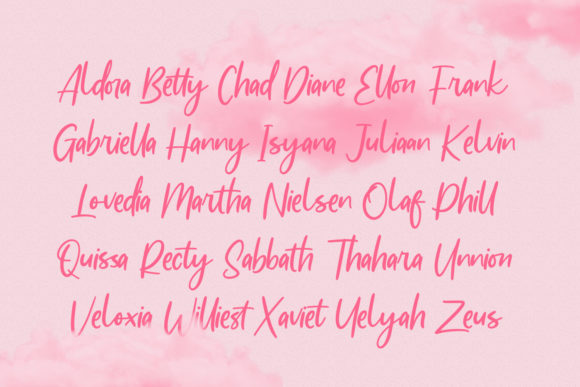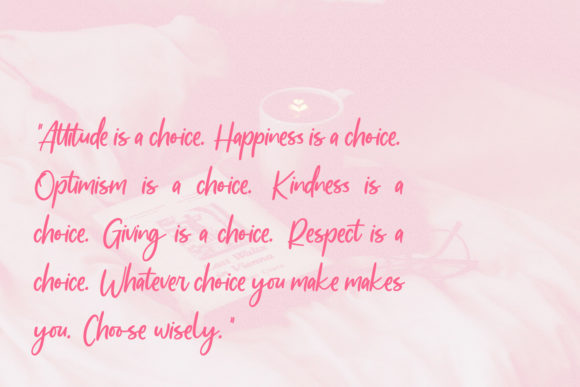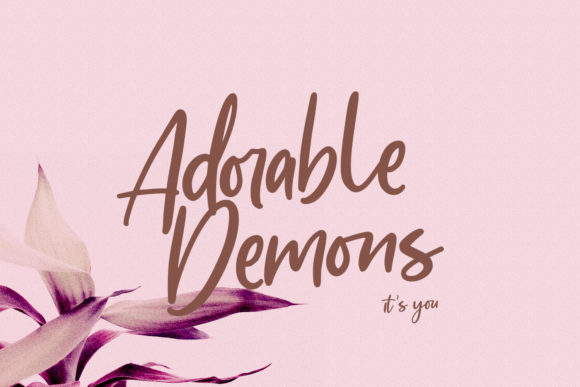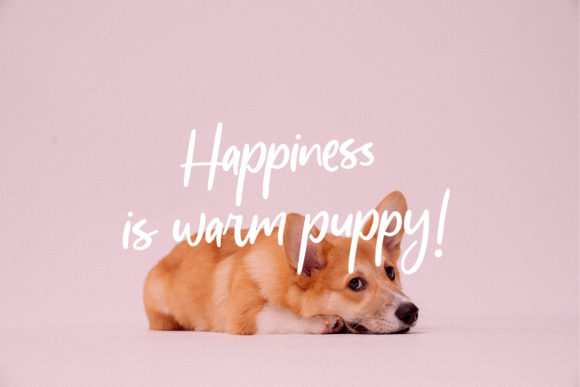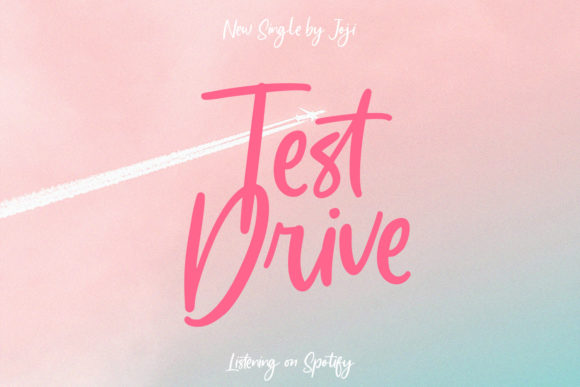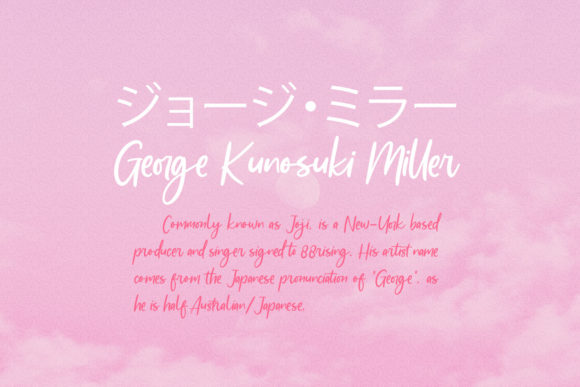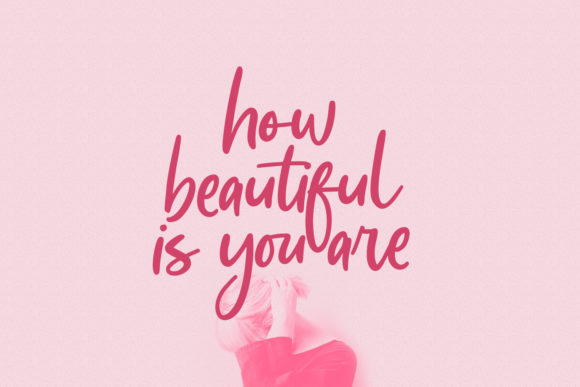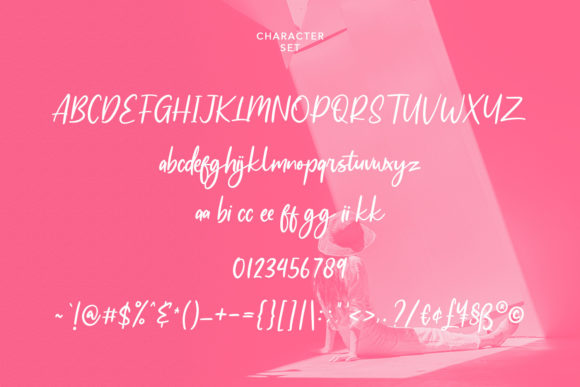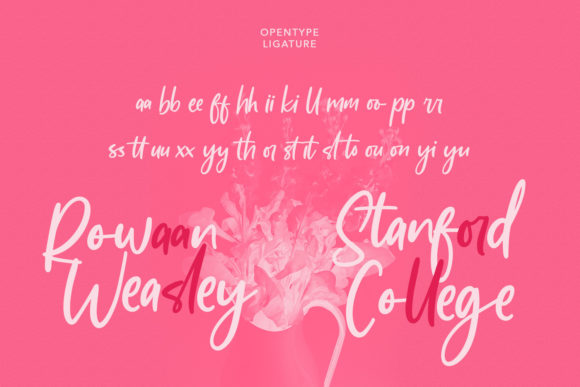
Adoredly Script Font
About Adoredly Script Font
Adoredly Script is a laid-back and flowing handwritten font, featuring a lovely style. No matter the topic, this font will be an incredible asset to your fonts’ library, as it has the potential to elevate any creation.